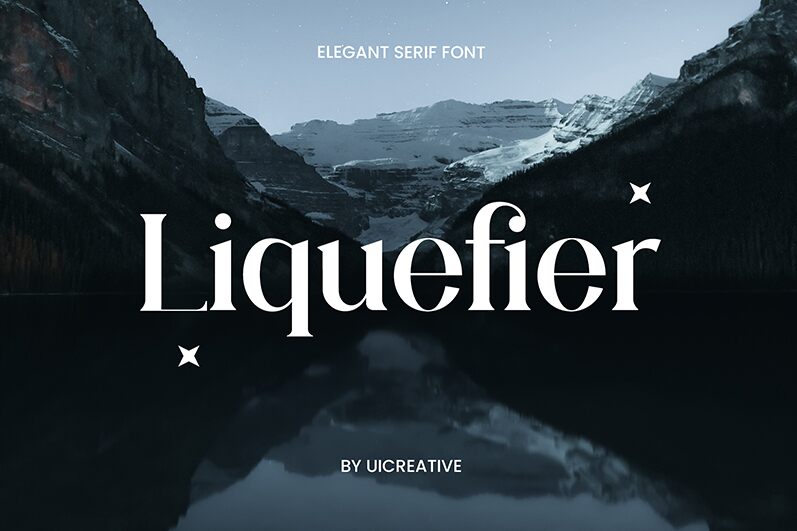
Liquefier
Liquefier, a captivating serif font crafted by UI Creative, exudes a refined and sophisticated charm. Its distinctive letterforms feature smooth, undulating strokes that seamlessly flow together, creating a sense of fluidity and elegance. The subtle serifs add a touch of timelessness, while the balanced proportions and carefully crafted details contribute to an overall impression of understated elegance.
This versatile font lends itself well to a variety of design applications, from elegant editorial layouts to refined branding and packaging designs. Its legibility and versatility make it a valuable asset for projects that require a touch of sophistication and timelessness, whether in print or digital mediums.